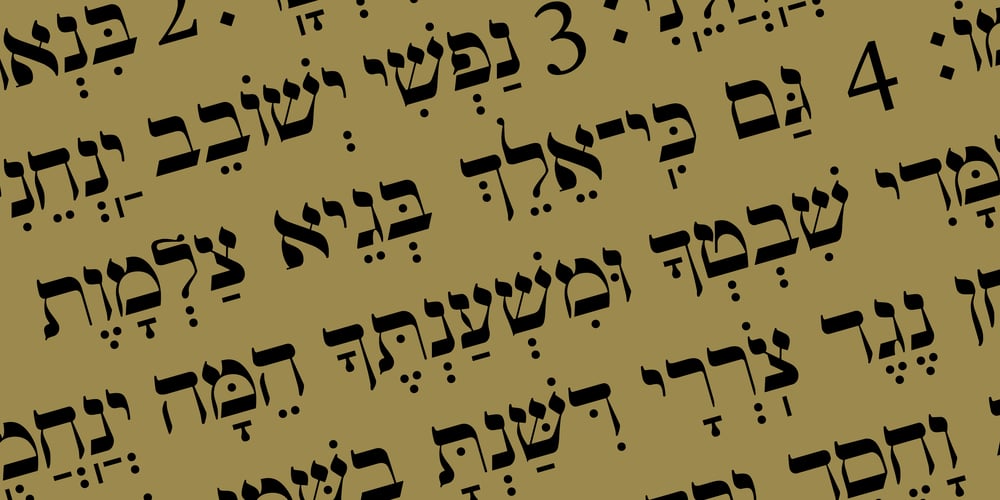
Hebrew Siddur Font Family was designed by Sami Artur Mandelbaum and published by Samtype. Hebrew Siddur contains 3 styles and family package options. This is a classic design from the beginning of the 20th century.This font can be used in many kinds of books.This font has the modern Hebrew punctuation: Shevana, Kamatz Katan, Dagesh Hazak, and Cholam Chaser.